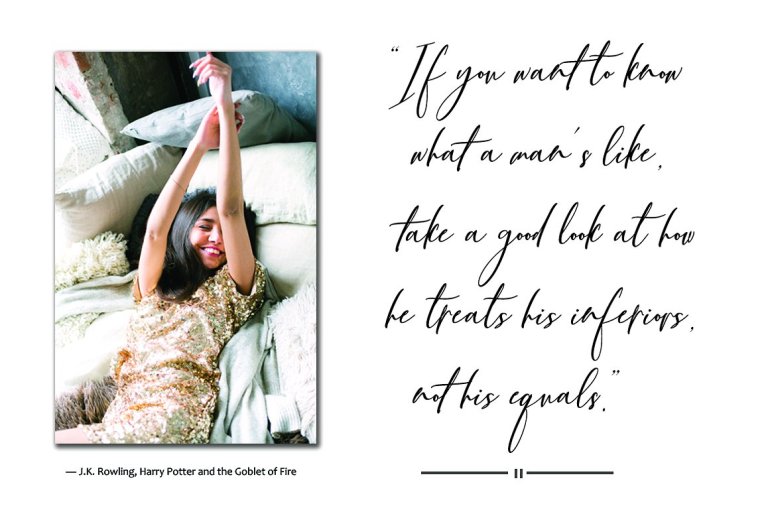
Bellidia Script Font
A modern calligraphy typeface by mightype. Introducing Bellidia Font. Bellindia with the current handwriting style, this font is perfect for branding, wedding invites, magazines, mugs, business cards, quotes, posters, and more, you can try first if you want to buy this font.